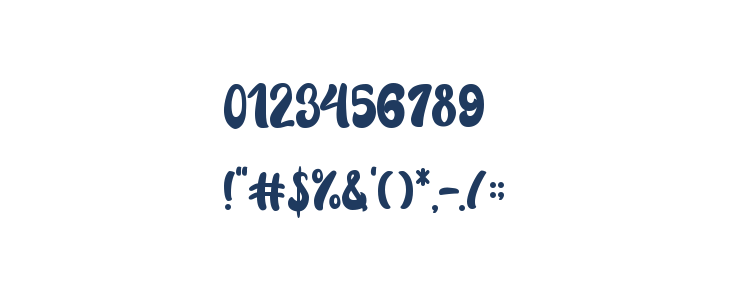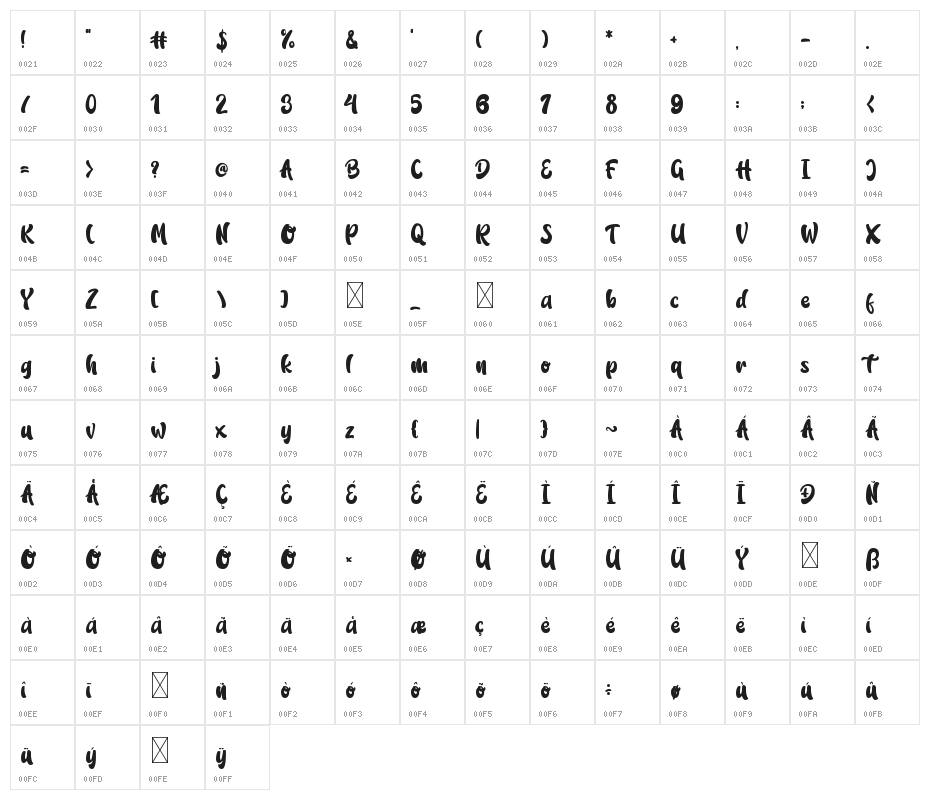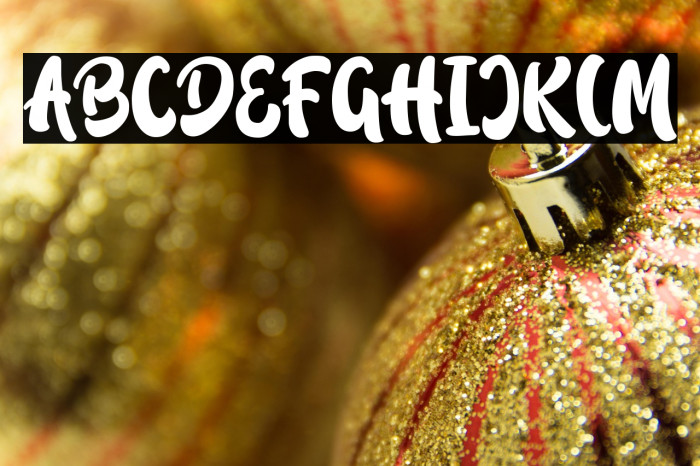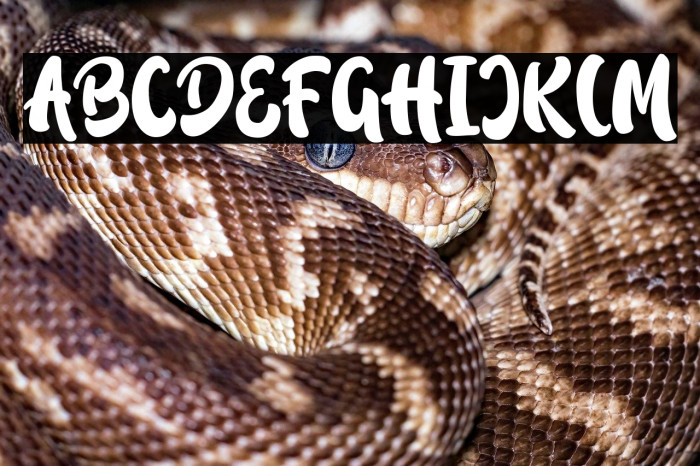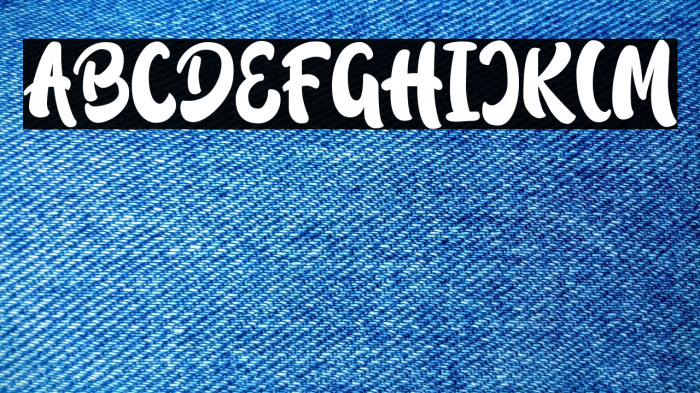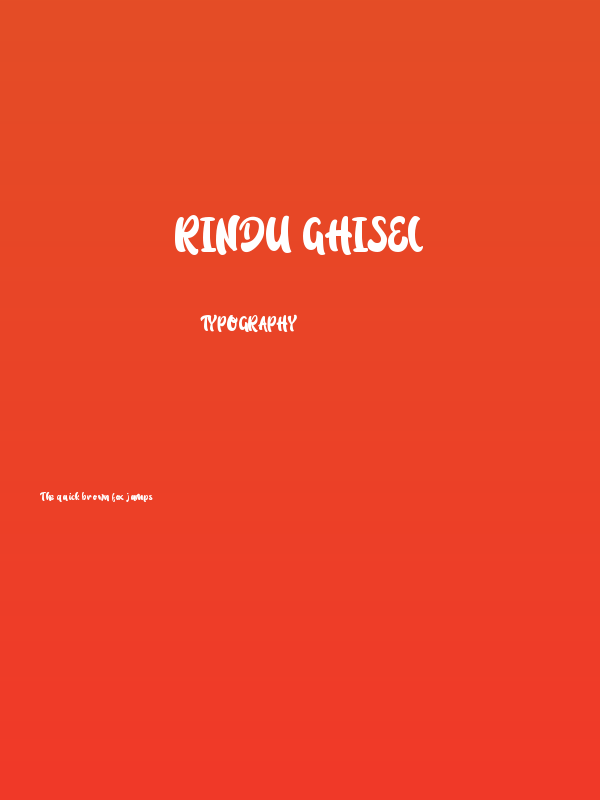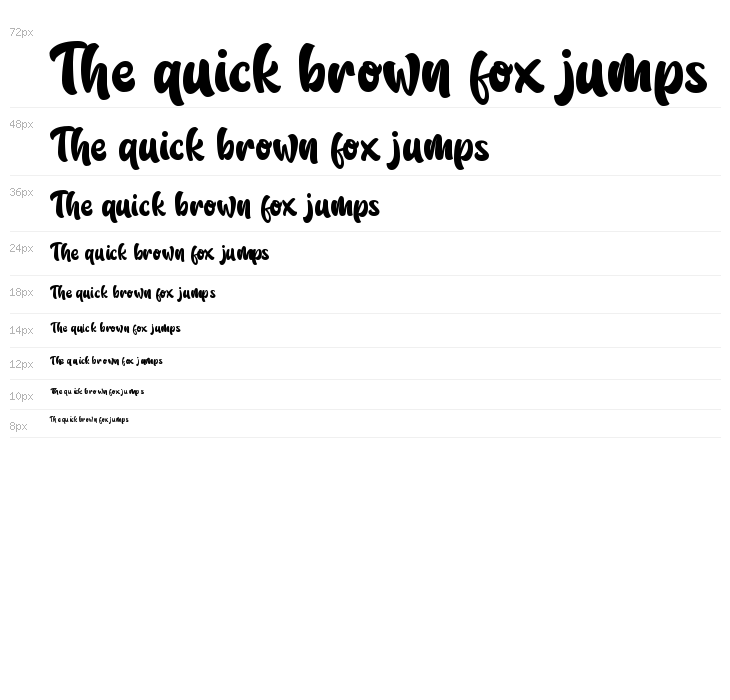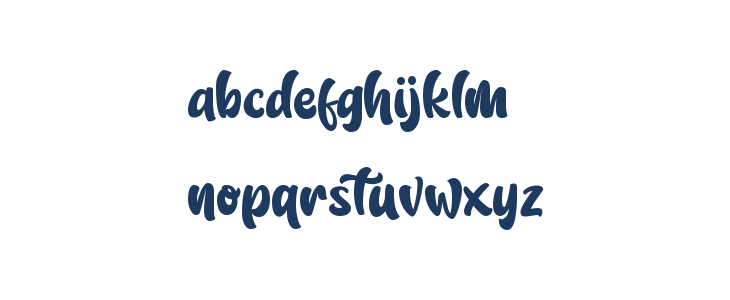
Rindu Ghisel Font
Rindu Ghisel Description
This font features a playful and bold script style with a handwritten feel. The characters are rounded and have a smooth flow, giving them a friendly and approachable appearance. The uppercase letters are slightly larger and more prominent, while the lowercase letters maintain a consistent size and shape. The numbers are clear and easy to read, matching the overall style of the alphabet. Special characters are included, adding versatility to the font. The strokes are thick, providing a strong presence, yet the rounded edges soften the overall look, making it suitable for a variety of creative projects.